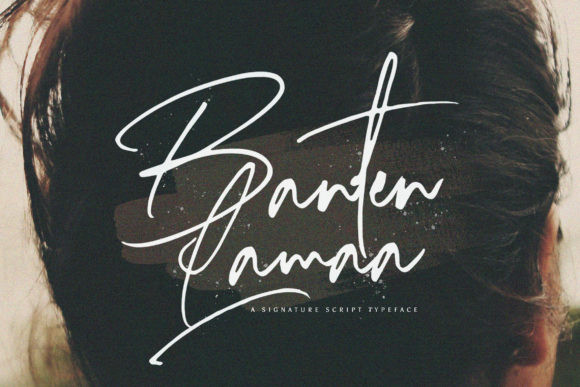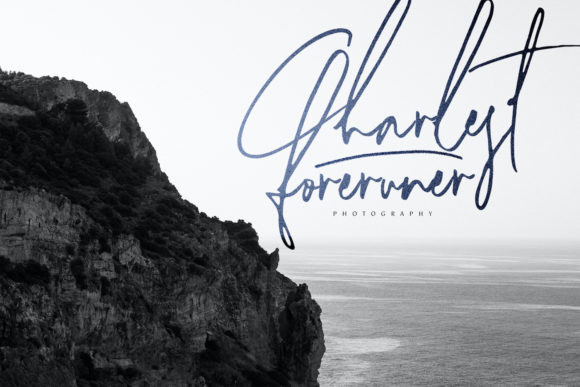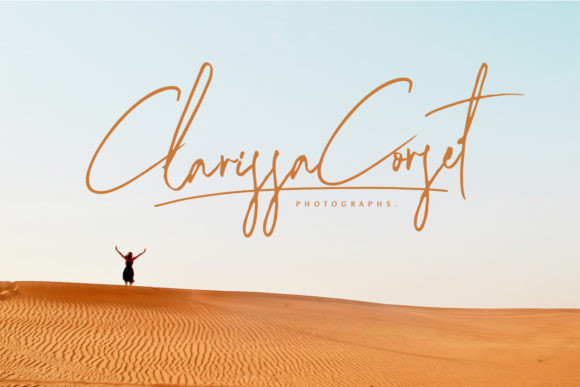
Banten Lama Font
Banten Lama is a delicate and beautifully designed script font. that has an elegant flow and stunning use of height in each letter. Fall in love with its distinct style and use it to create spectacular designs!